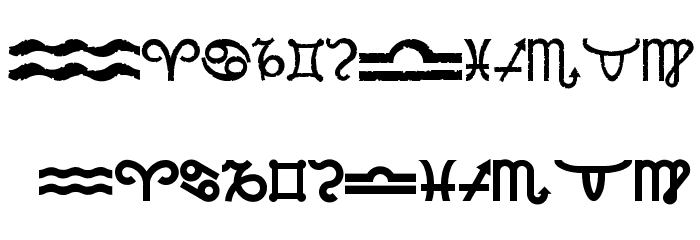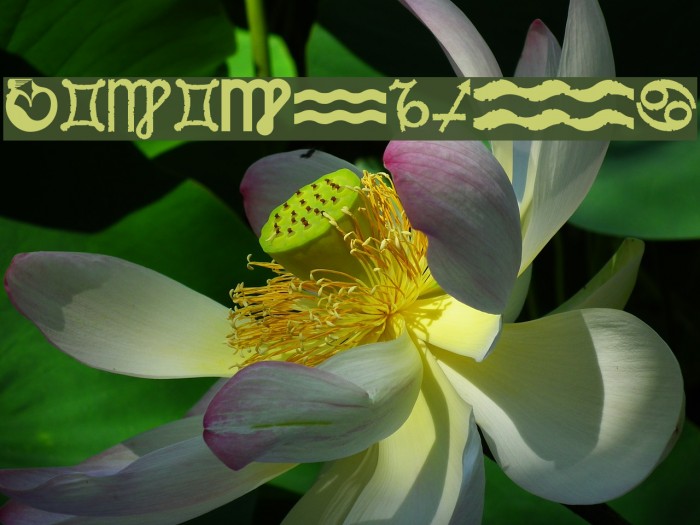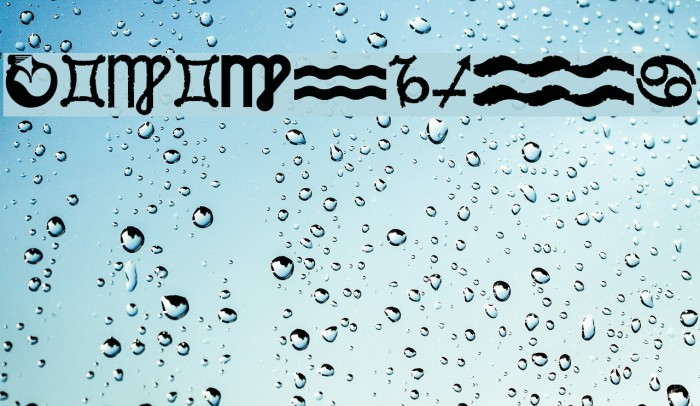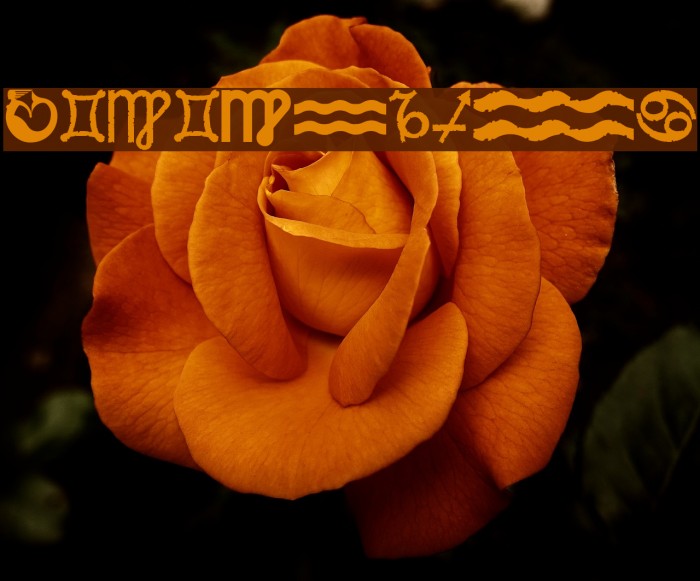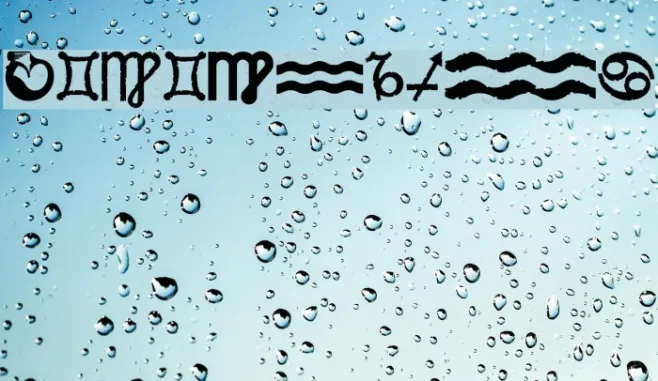
Velezodiac Font
This set of symbols is inspired by the zodiac signs, each character representing a different astrological symbol. The design is highly decorative, with each symbol intricately crafted to reflect the unique characteristics of the zodiac it represents. The style is bold and artistic, making it suitable for projects that require a mystical or celestial theme. The symbols are not traditional letters or numbers, but rather graphical representations of the zodiac signs, each with its own distinct flair and embellishment.
Decorative zodiac symbols with intricate designs.
- Proposed Projects: Ideal for astrology-themed designs, mystical artwork, or celestial event promotions.
- Use Case: Logos, Posters, Themed Events